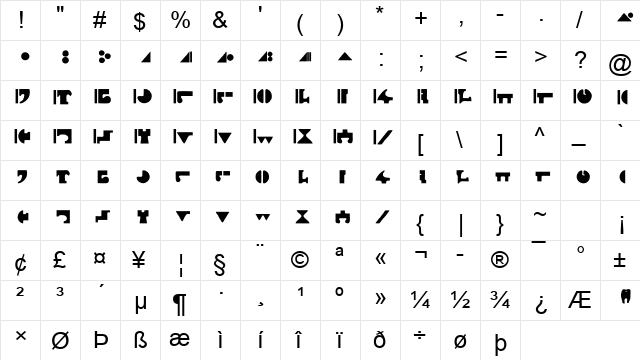
INTERLAC (by Blue Panther) Regular
INTERLAC (by Blue Panther) is a composed and adaptable typeface that performs quietly and consistently across a wide range of design contexts.